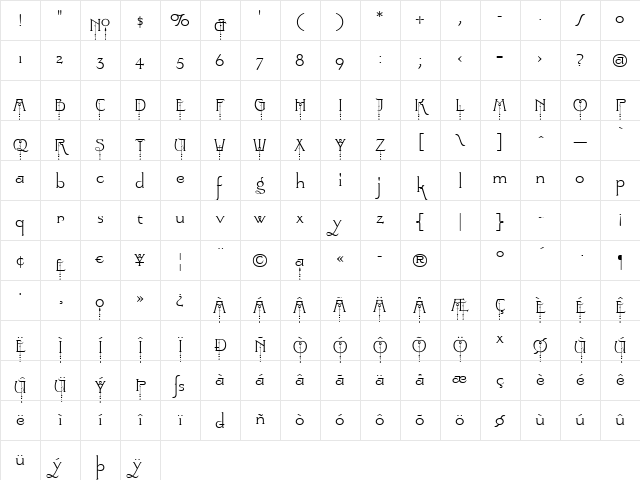
Yolanda Princess Regular
Design Context for Yolanda Princess
Yolanda Princess is a composed and adaptable typeface that performs quietly and consistently across a wide range of design contexts.
Pro Tip: Use Yolanda Princess in both headline and body roles to test its range before committing to a single application.